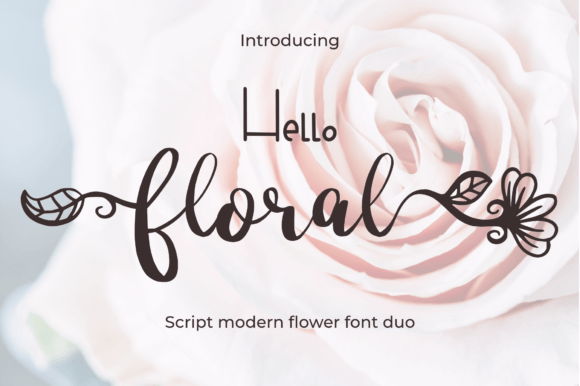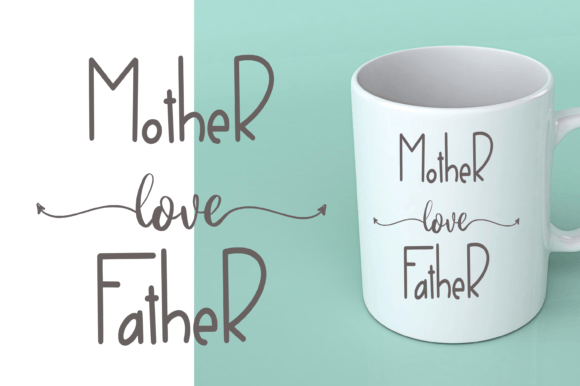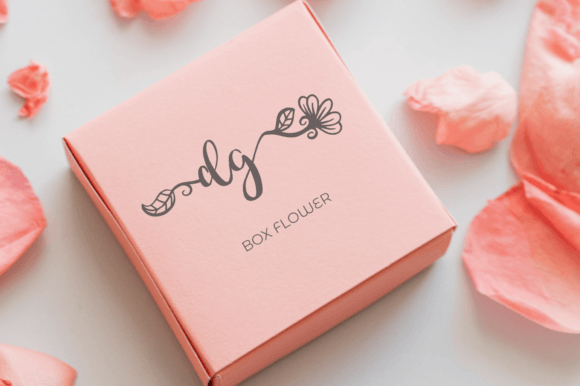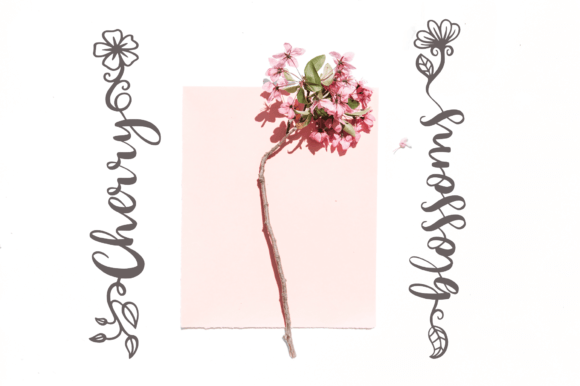
Hello Floral Font
About the Hello Floral Font
Welcome to the world of Hello Floral Font, a typeface that will inspire your next great project. Floral- Duo Font With Extras is a new modern script font with an irregular baseline. Trendy and feminine style. Floral- Duo Font With Extras looks beautiful in wedding invitations, thank-you cards, quotes, greeting cards, logos, business cards, and more. Perfect for use in ink or watercolors. Including initial letters and terminals, alternatives, and support for many languages.
Hello Floral Font’s irregular baseline and feminine style make it ideal for projects requiring a touch of delicate elegance. It excels in short text applications such as logos, headlines, wedding stationery, and social media graphics. Avoid using it for body text or long paragraphs; the inconsistent baseline would hinder readability.
The font’s personality is best described as charming and romantic. Brands focusing on beauty, fashion, or artisanal goods will find it particularly suitable. Pair it with a clean sans-serif like Lato for contrast and readability in applications with both headline and body copy. For a more sophisticated look, consider pairing it with a classic serif like Garamond.
For a playful yet refined feel, a delicate script font like Great Vibes could work well as an accent. Conversely, a geometric sans-serif like Montserrat would create a contemporary and balanced contrast.